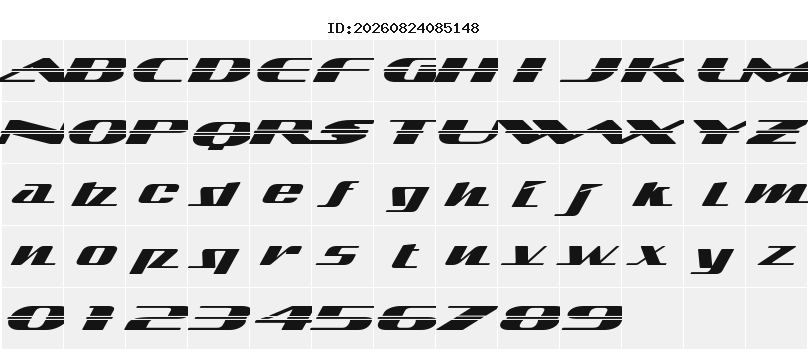
Sandoval Speed Preview
• Font Name: Sandoval Speed
• Full Font Name: SandovalSpeed-Regular
• Designer: Ray Larabie
• Manufacturer: Ray Larabie
About Sandoval Speed.ttf
Sandoval Speed.ttf is a modern, elegant sans-serif font designed for ultimate readability and visual harmony. Perfect for branding, headlines, web design, and print materials.